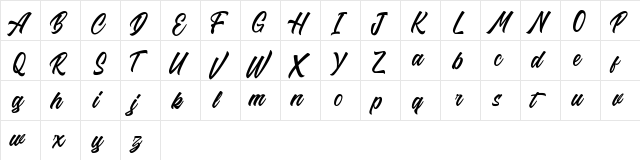
Riverside FREE Regular
| Foundry | inspiratype |
| Designer | inspiratype |
Design Context for Riverside FREE Typeface
Riverside FREE is a composed and adaptable typeface that performs quietly and consistently across a wide range of design contexts.